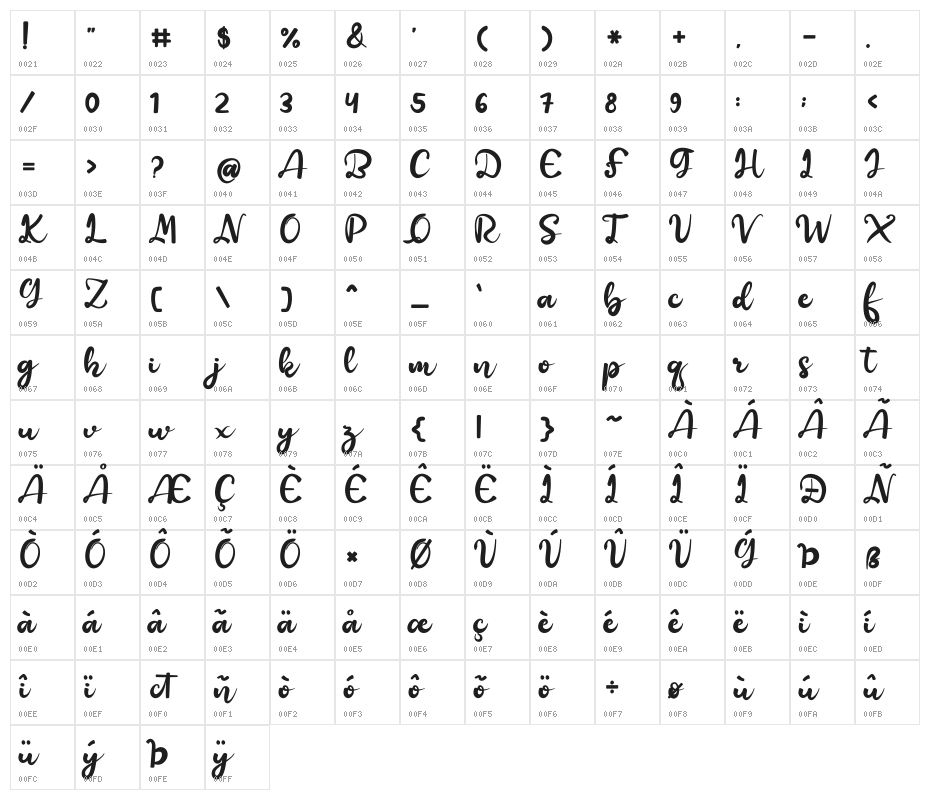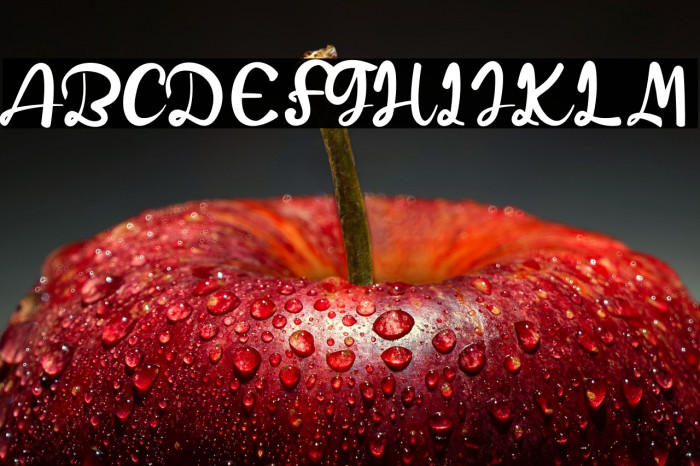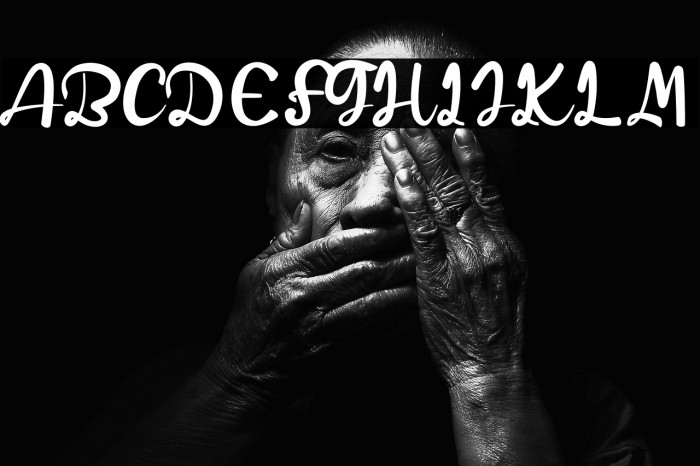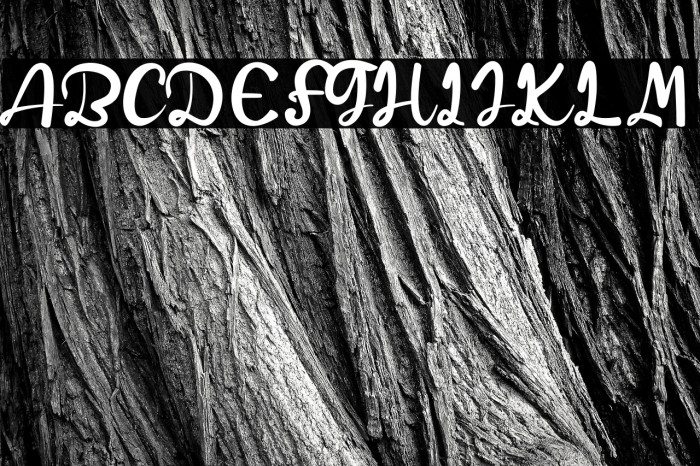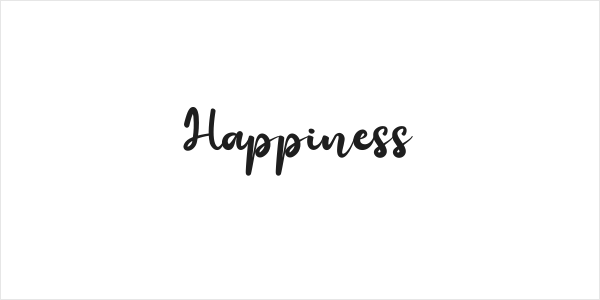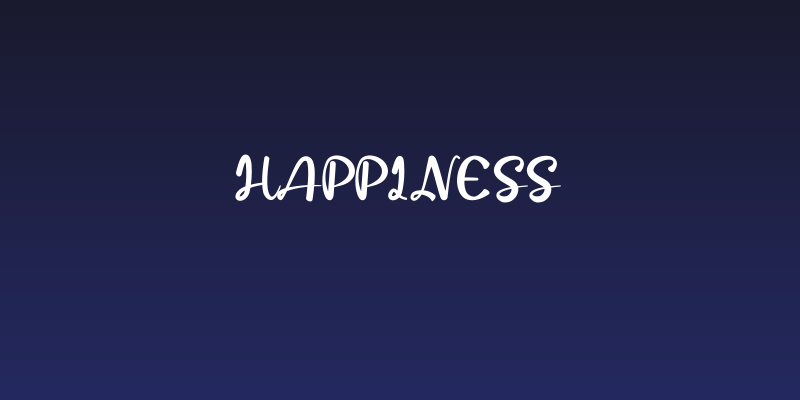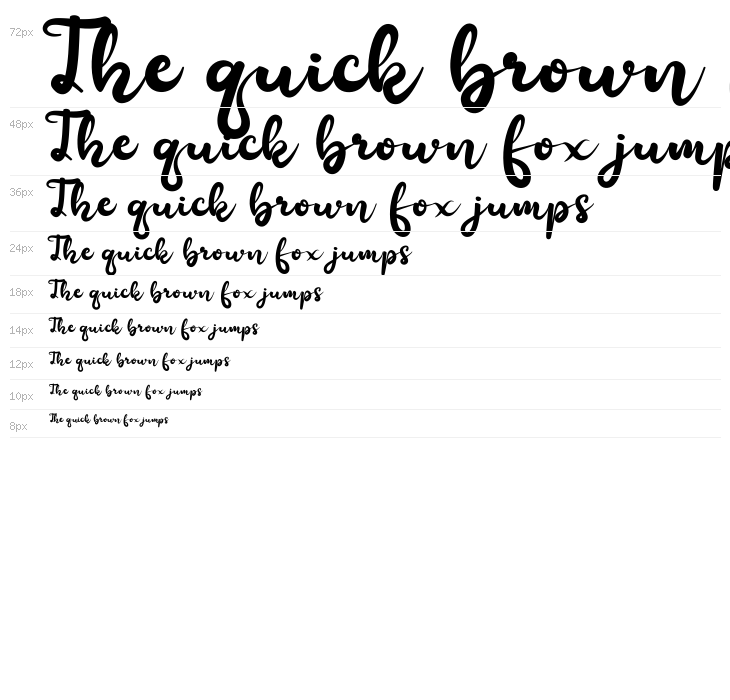
Happiness Font
Happiness Description
This font features a playful and lively script style, characterized by its flowing, cursive letters that mimic the fluidity of handwriting. The uppercase letters are bold and slightly exaggerated, giving a sense of movement and energy. The lowercase letters maintain a consistent flow, with smooth connections between each character, enhancing the handwritten feel. The numbers are rounded and maintain the same playful style, ensuring consistency across all characters. Special characters are designed to match the overall aesthetic, with a whimsical touch that complements the script nature. This font is ideal for projects that require a personal, friendly touch, such as invitations, greeting cards, or branding materials that aim to convey warmth and approachability.